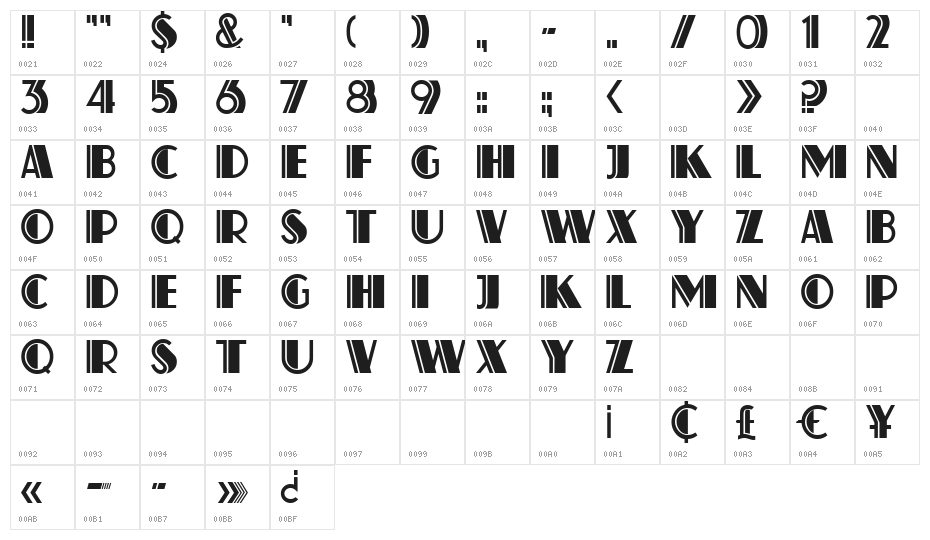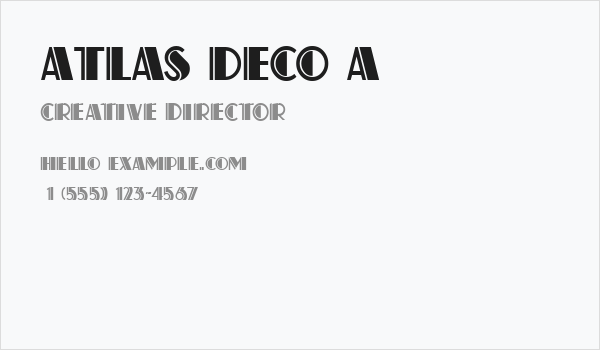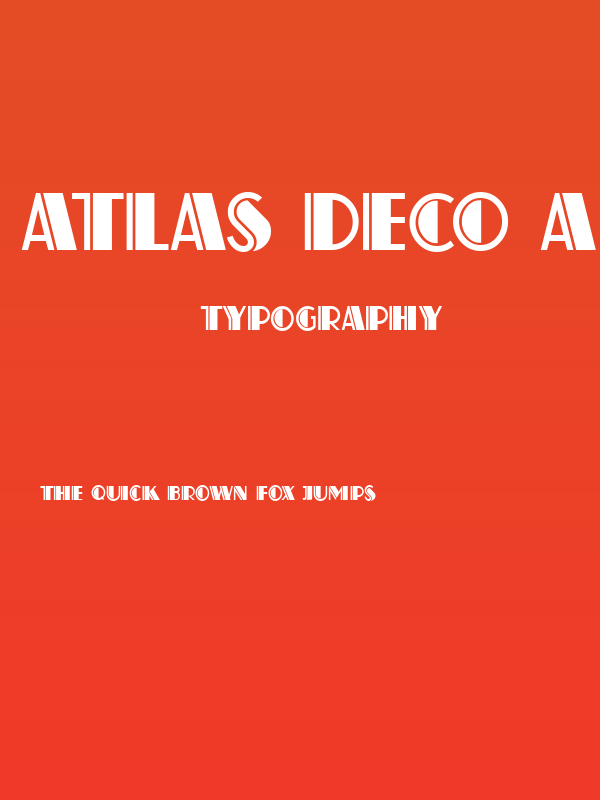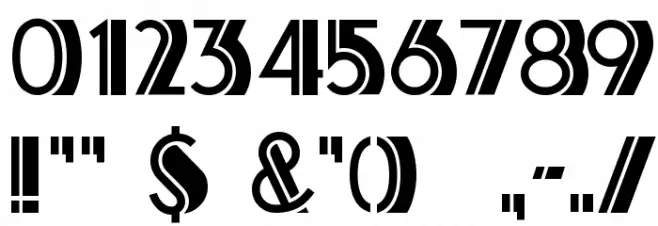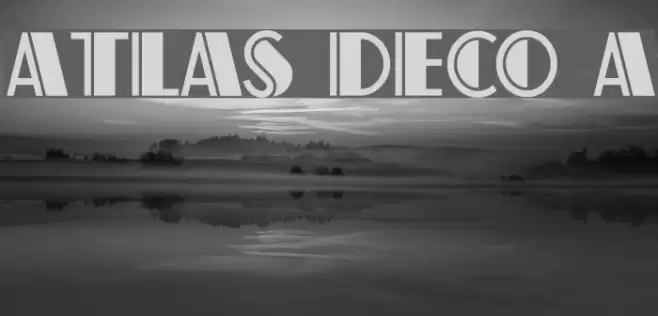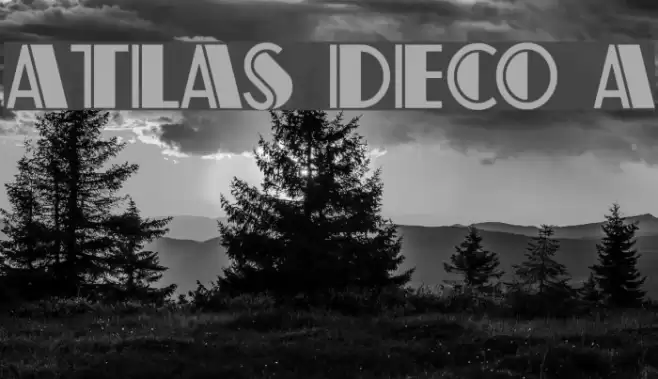
Atlas Deco A Font
Atlas Deco A Description
This font embodies a bold and striking Art Deco style, characterized by its geometric shapes and clean lines. The uppercase letters are distinct with sharp angles and a sense of symmetry, while the lowercase letters maintain a consistent style, offering a seamless transition between characters. The numerals are equally bold, featuring unique curves and angles that complement the overall design. Special characters are crafted with the same attention to detail, ensuring a cohesive look across all glyphs. This font is perfect for projects that require a touch of vintage elegance combined with modern flair.
| Overall Style | Vintage |
| Proposed Projects | Ideal for branding, posters, and editorial design where a vintage yet modern aesthetic is desired. |